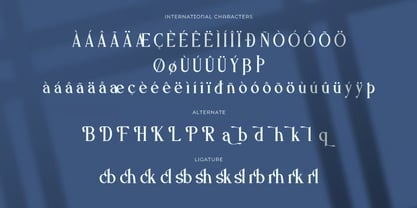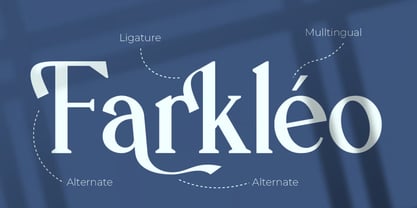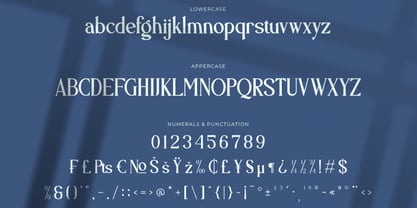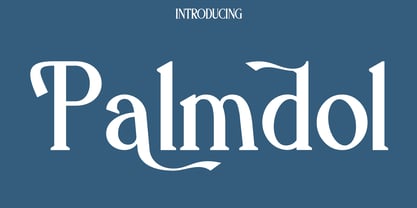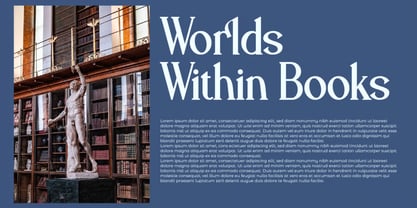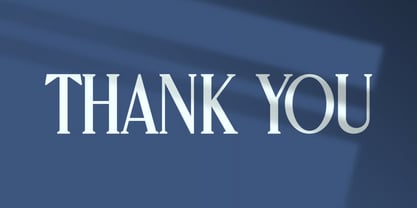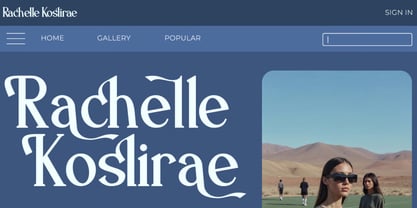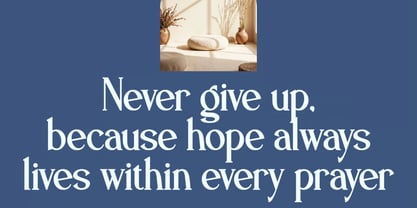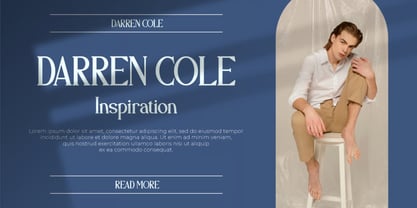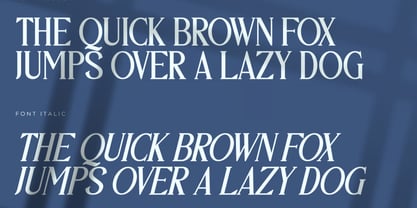
Palmdol
The Palmdol Font Family was designed by Hasnat Khan and published by Hasnat Studio. Palmdol contains 1 styles. More about this family
Palmdol is a premium serif typeface designed to exude sophistication, confidence, and refinement. With its distinctive letterforms and balanced proportions, Palmdol delivers a luxurious, high-end aesthetic perfect for projects that demand elegance and professionalism. From editorial design to branding and packaging, this font ensures your typography stands out with class and clarity. Crafted with precision and attention to detail, Palmdol features ligatures, alternates, and multilingual support, making it a versatile choice for designers worldwide. Its clean curves and graceful serifs create a timeless visual experience that enhances readability while maintaining a premium appearance. ✿ Key Features: - Distinctive Serif Design: Combines modern sharpness with classic sophistication. - Ligatures & Alternates: Adds variety and stylistic flair for custom typography. - Multilingual Support: Supports 65+ languages including English, French, German, Spanish, Italian, and many more. - PUA Encoded: Full access to all special characters without the need for additional design software. - Optimized Compatibility: Works seamlessly on Mac and Windows. - Easy Installation: Simple to install and ready for immediate use. - Fully Compatible with Design Software: Works effortlessly in Adobe Illustrator, Photoshop, InDesign, and even Microsoft Word. ✿ Perfect For: - Luxury Branding & Logo Design: Ideal for premium product lines and exclusive brand identities. - Editorial & Print Design: Excellent for magazines, books, and elegant typographic layouts. - Packaging & Labels: Adds a refined and distinguished touch to product designs. - Web & Digital Media: Ensures stylish and professional typography across all platforms. Elevate your creative work with Palmdol — a refined serif typeface that blends timeless design, multilingual versatility, and premium craftsmanship, making every project feel truly distinguished.